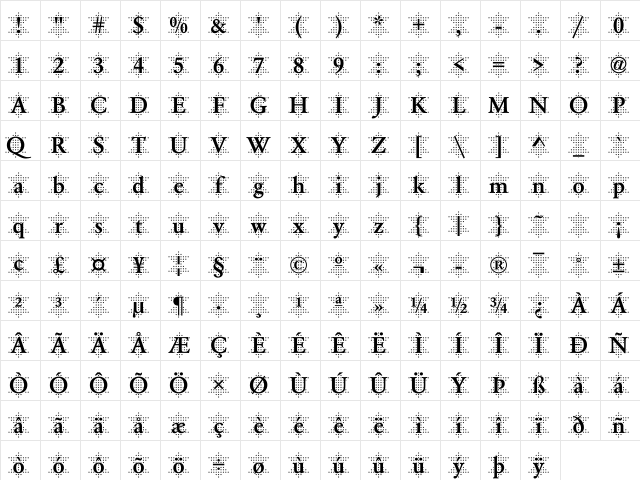
Garamond47 Becker Regular
Design Context for Garamond47 Becker Typeface
Garamond47 Becker is a composed and adaptable typeface that performs quietly and consistently across a wide range of design contexts.